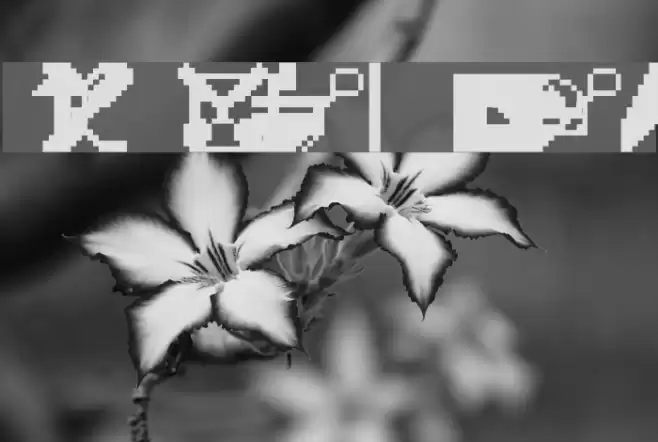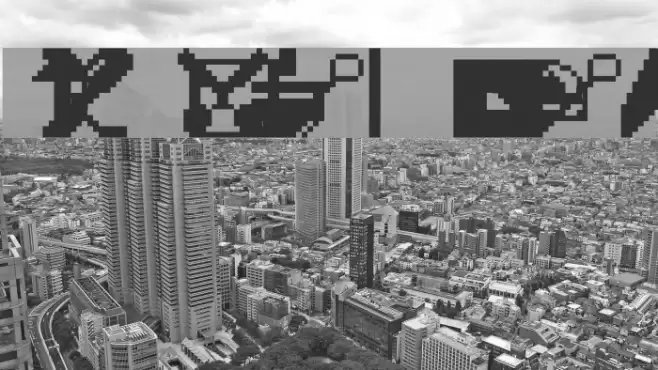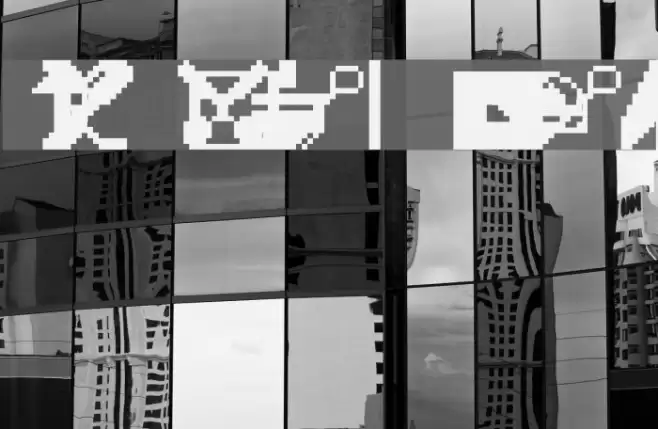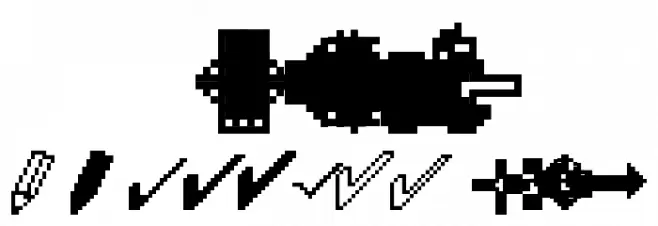
Engelbart Raw Font
Engelbart Raw Description
A collection of highly pixelated, abstract, and geometric symbols and icons reminiscent of early computer interface graphics. The glyphs are blocky, with sharp edges, and lack traditional letterforms, focusing instead on functional shapes such as arrows, check marks, and interface elements.
Pixel-based icon set inspired by early computer UI graphics from Uncategorized fonts.
- Proposed Projects: Retro digital interfaces, tech-themed posters, pixel art games, educational materials about computing history.
- Overall Style: Retro, Decorative, Pixel Art
- Use Case: Icons, UI elements, Themed graphics